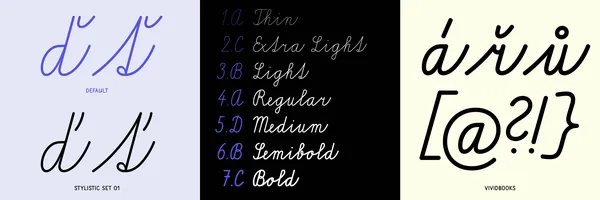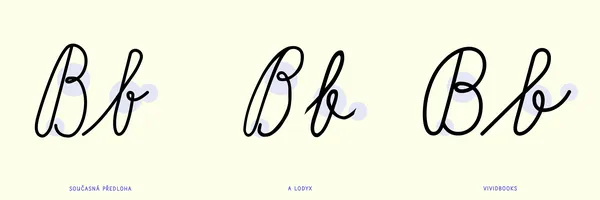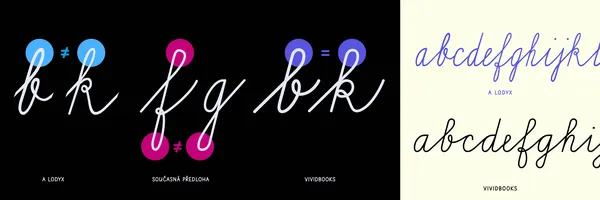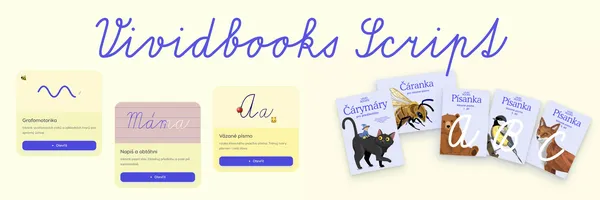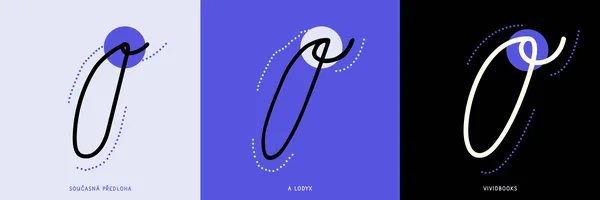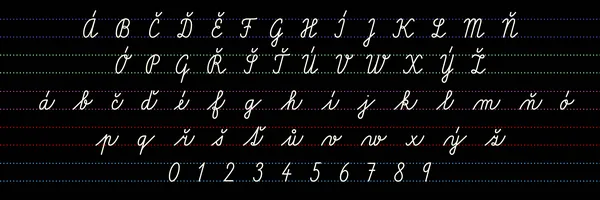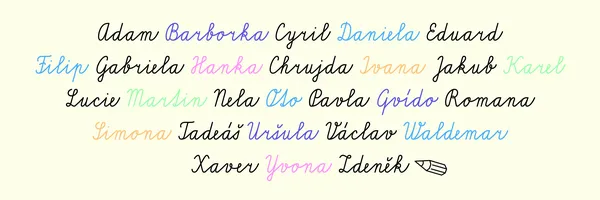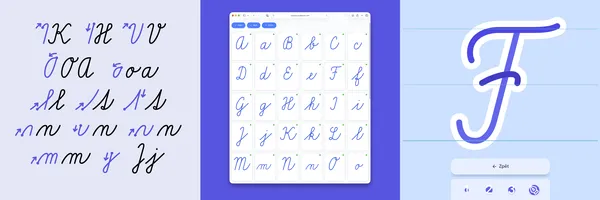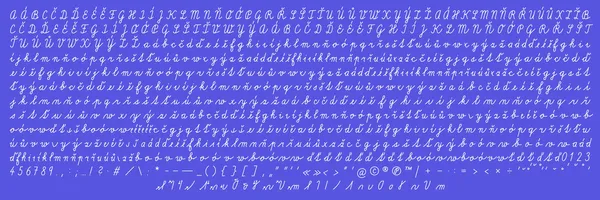
Vividbooks Script
I had the opportunity to collaborate with Vividbooks on the digital development of a new Czech school cursive — the first major update of its kind since the early 20th century. The goal was to update and elevate the traditional handwritten model, whose letterforms have remained largely unchanged since the 1932, and adapt it to the needs and motor skills of children today.
Vividbooks Script preserves the fundamental principles of cursive handwriting — continuity, rhythm, and natural flow — while introducing a more open, more readable, wider skeleton with simplified shapes without unnecessary curlicues. The design focuses on improving legibility and ease of writing, removing forms that do not reflect natural hand movement. Compared to the existing model, the typeface features more generous proportions, open loops, and a calmer overall texture.
Vividbooks is a Czech publisher focused on textbooks and workbooks for primary schools, combining printed materials with interactive digital elements. Currently, Vividbooks are used by more than 450 schools in the Czech Republic and Slovakia.
• Full Name
Vividbooks Script
• Static Styles
(1) Regular
• Type design
Petra Dočekalová
• Designed, released
2025, 2026
• Classification
School cursive, Monolinear, Script
• Number of glyphs per style
675
• Písanka
The use of Vividbooks Script extends into a broader educational system — including a new series of exercise books with larger formats and more writing space, as well as a digital application called Písanka that supports handwriting through interactive tools, animations, and playful exercises. Try it, it’s super fun!
Research & design improvements
Up and below you can find a comparison between the commonly used font A lodyx, the current school cursive, and the Vividbooks script, focusing on key aspects such as the slant of the glyphs, overall width proportions and differences between similar glyphs, the quality of curves and digitization, inconsistencies in loops and curls, inaccuracies in similar structural details, and issues with connections, spacing, and overall quality:
Vividbooks’ custom script builds on my long-term research into Czech handwritten script, which has evolved throughout my master’s and doctoral studies. Vividbooks Script represents an intermediate step — a current phase in an ongoing process of shaping a more refined and relevant cursive for future first-graders, that I love working on!